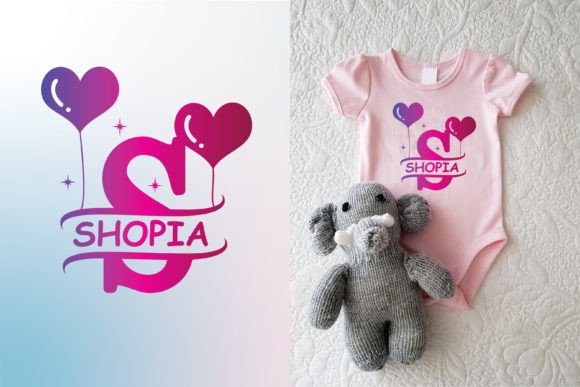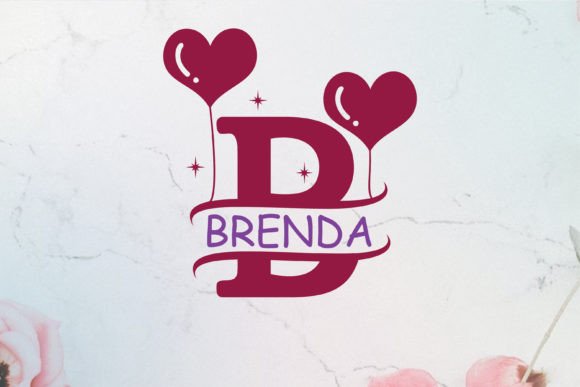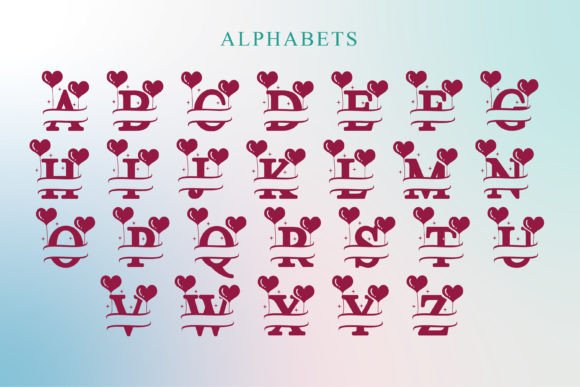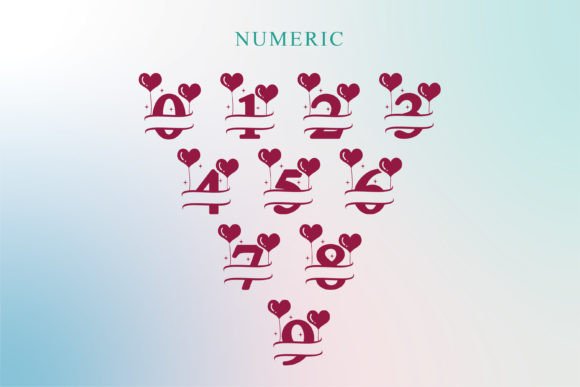
Introduction to Love Baloon Font
Have you ever been brainstorming a creative project, and suddenly, a burst of inspiration strikes? Perhaps it’s a playful color palette or an adorable illustration, but whatever it is, it’s the perfect spark to get your creative juices flowing. For designers like you, finding the right design resource can make all the difference between a good project and a great one. And, that’s where the Love Baloon Font comes in – a delightful, high-quality font that’s sure to add a touch of whimsy to any design.
This charming font is more than just a pretty face; it’s a valuable asset for designers who want to bring a smile to their audience’s faces. With its bouncy letters and playful curves, the Love Baloon Font is perfect for creating eye-catching graphics, social media posts, and even branding materials. Plus, with a transparent background, you can easily customize it to fit your design needs. And the best part? It’s available for a free download, making it an accessible design resource for designers of all levels.
Key Features of Love Baloon Font
- High-quality, vector-based design resource ideal for creative projects
- Unique, hand-drawn design with a transparent background for flexibility
- Perfect for creating eye-catching graphics, logos, and typography for various creative projects
Honest Review: Love Baloon Font
As a designer, I’m always on the lookout for high-quality design resources that can elevate my creative projects. The Love Baloon Font caught my attention, and I decided to give it a try. Here’s my honest review.
- The Love Baloon Font has a beautiful, playful design that’s perfect for projects that need a touch of whimsy.
- The transparent background option is a nice touch, allowing me to easily layer the font over other design elements.
- The font may not be suitable for professional or formal projects, as it has a more casual tone.
- The number of characters and languages supported is limited, which may be a drawback for designers working on multilingual projects.
Overall, I think the Love Baloon Font is a great design resource for designers working on creative projects that need a playful touch. While it has some limitations, it’s a free download and can be a great addition to any design arsenal.
Introduction to Love Baloon Font
Love Baloon Font is a high-quality design resource perfect for creative projects that require a playful and whimsical touch. This beautiful font is available for free download and features a transparent background, making it easy to integrate into any design.
Common Use Cases for Love Baloon Font
Love Baloon Font is perfect for a variety of creative projects, including:
- Social media graphics and posts.
- Flyers and brochures.
- Presentation slides and documents.
- Web design and development.